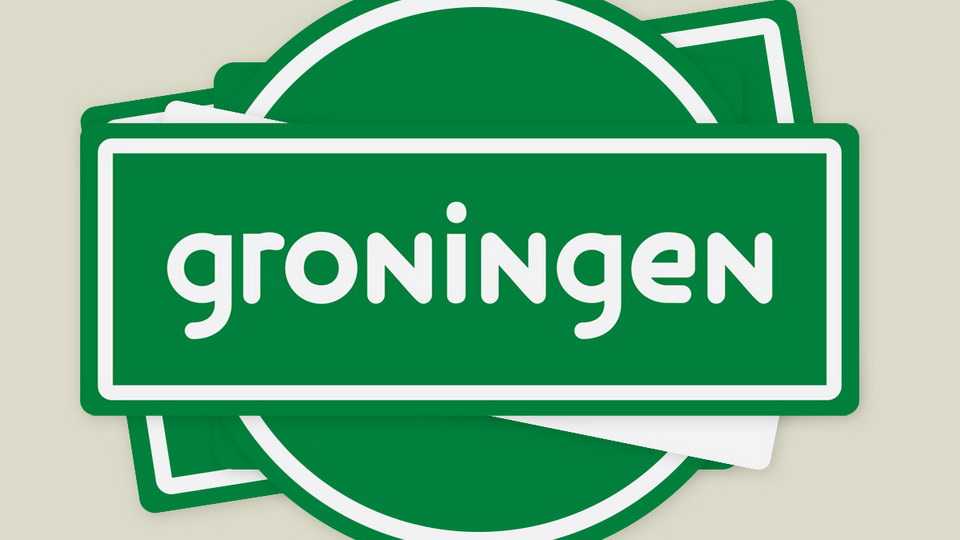
Download Groningen font, a rounded geometric typeface inspired by the city known for their cycle friendly approach in infrastructure. The cycling signs all over the city, the simple rounded shapes were the key to this typeface.
Designer: Dennis de Vries